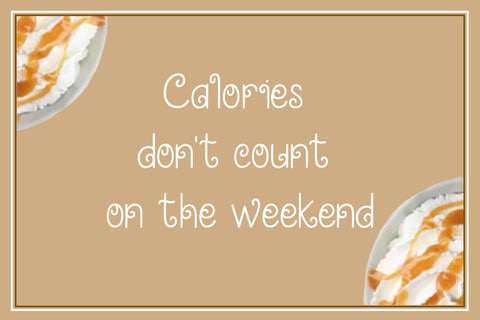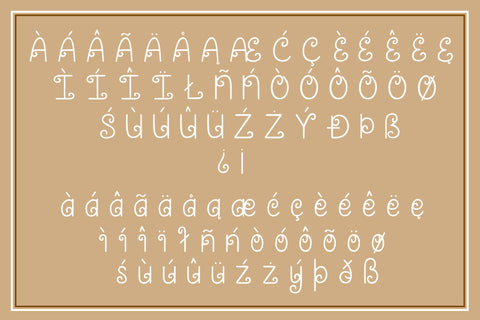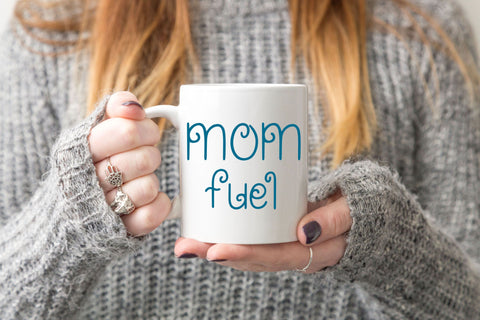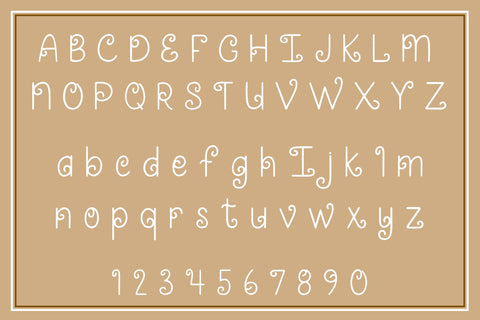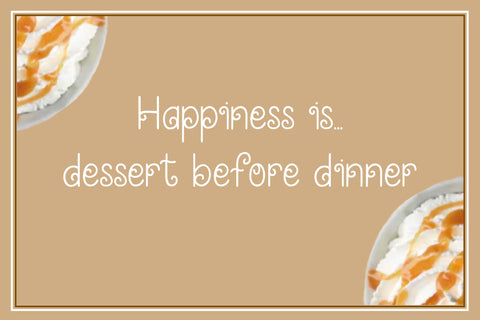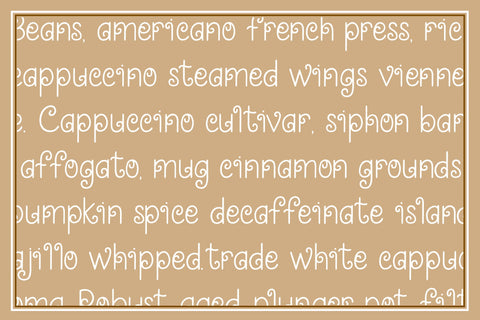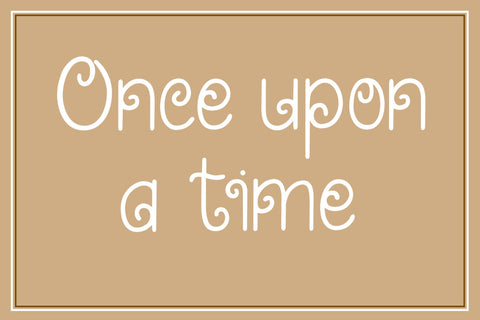
Caramel Swirl - A fun and swirly font
Caramel Swirl is a fun and swirly handwritten font made up of capital letters A-Z, lowercase letters a-z, numbers 0-9, accented characters and punctuation.